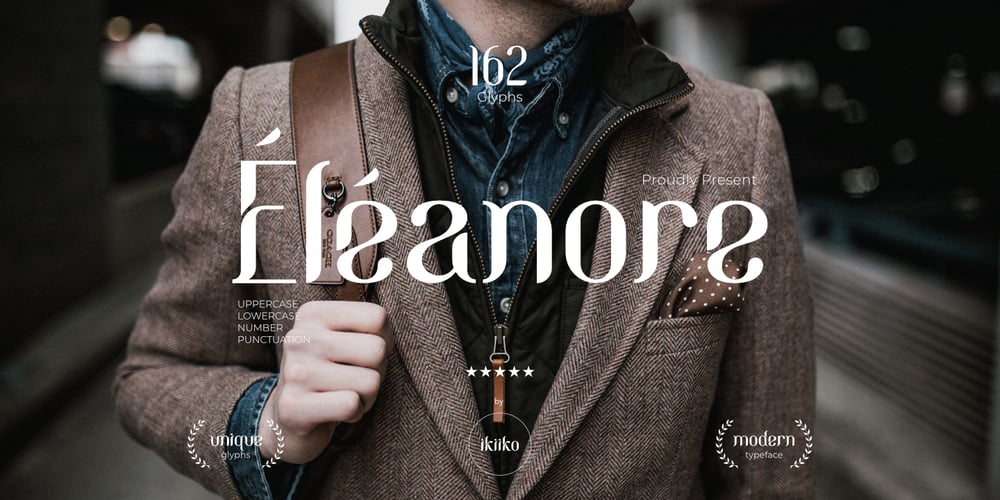
Eleanore Typeface Font Family was designed by Andhika Pradana and published by IKIIKOWRK. Eleanore Typeface contains 1 styles and family package options. Proudly present Eleanore Typeface, created by ikiiko.A decorative typeface that has own unique style & modern look. This typeface is perfect for an elegant & luxury logo, book or movie title design, fashion brand, magazine, clothes, lettering, quotes, and so much more.What’s Included? Uppercase & Lowercase Number & Punctuation Multilingual Support Format File : TTF & OTF Works on PC & Mac Get also a good offer & FREEBIE at our site : www.ikiiko.comEnjoy our font and if you have any questions, you can contact us by email : ikiikowrk@gmail.com